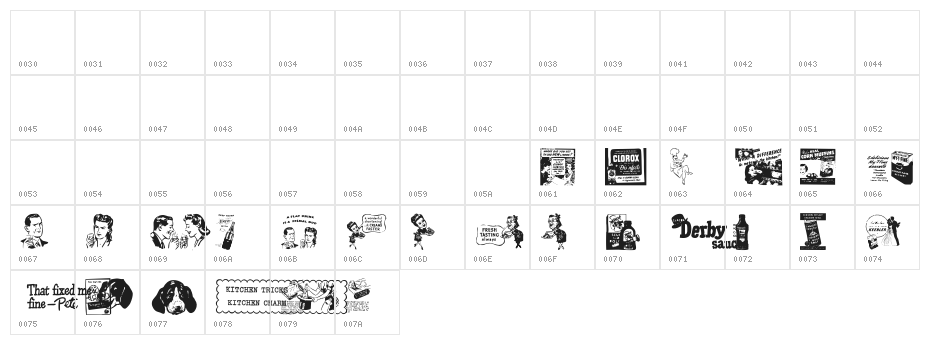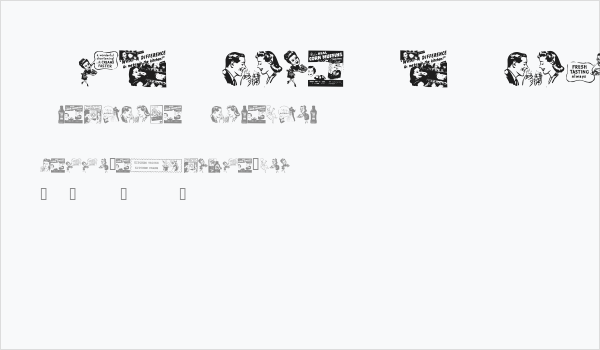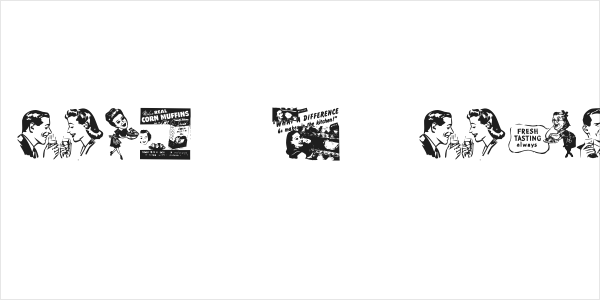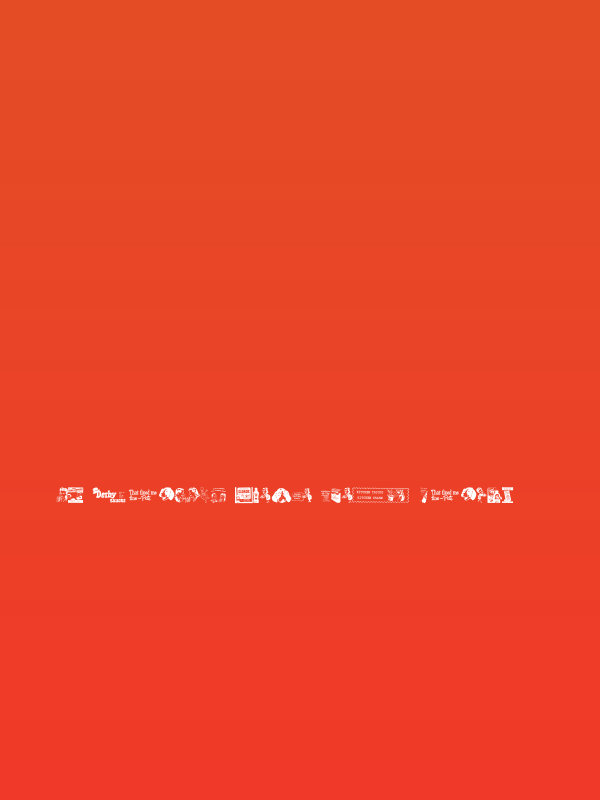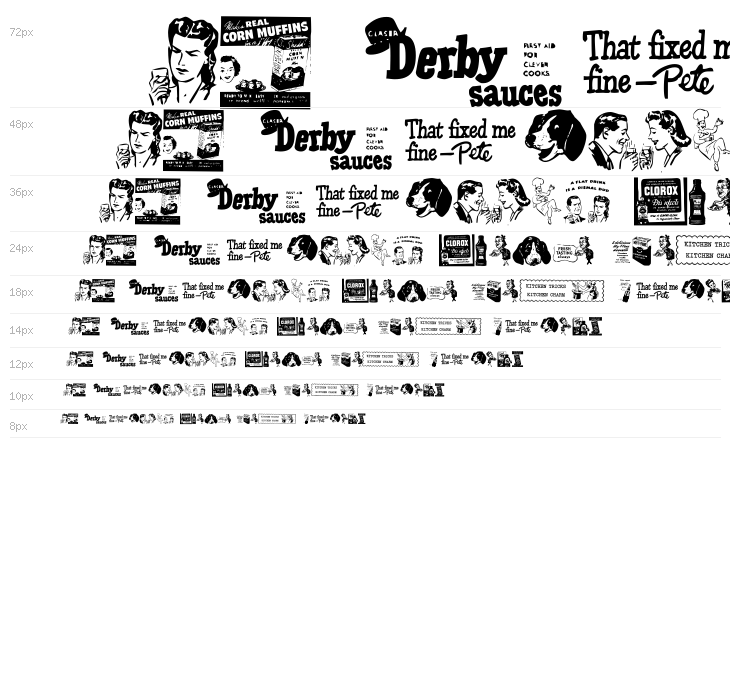
Old Time Ad Dings Two Font
Old Time Ad Dings Two Description
This collection features a series of vintage-inspired illustrations and advertisements reminiscent of mid-20th-century print media. The graphics include classic product ads, retro characters, and nostalgic slogans, capturing the essence of a bygone era. The style is characterized by bold lines, high contrast, and a playful yet sophisticated aesthetic. These elements evoke a sense of nostalgia and charm, making them ideal for projects that aim to capture a retro or vintage feel.
| Use Case | Logos, Posters, Branding |
| Proposed Projects | Ideal for retro-themed graphic design projects, vintage-style posters, nostalgic branding, and period-specific event promotions. |